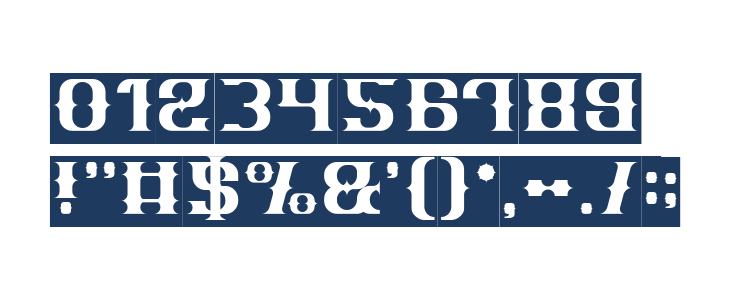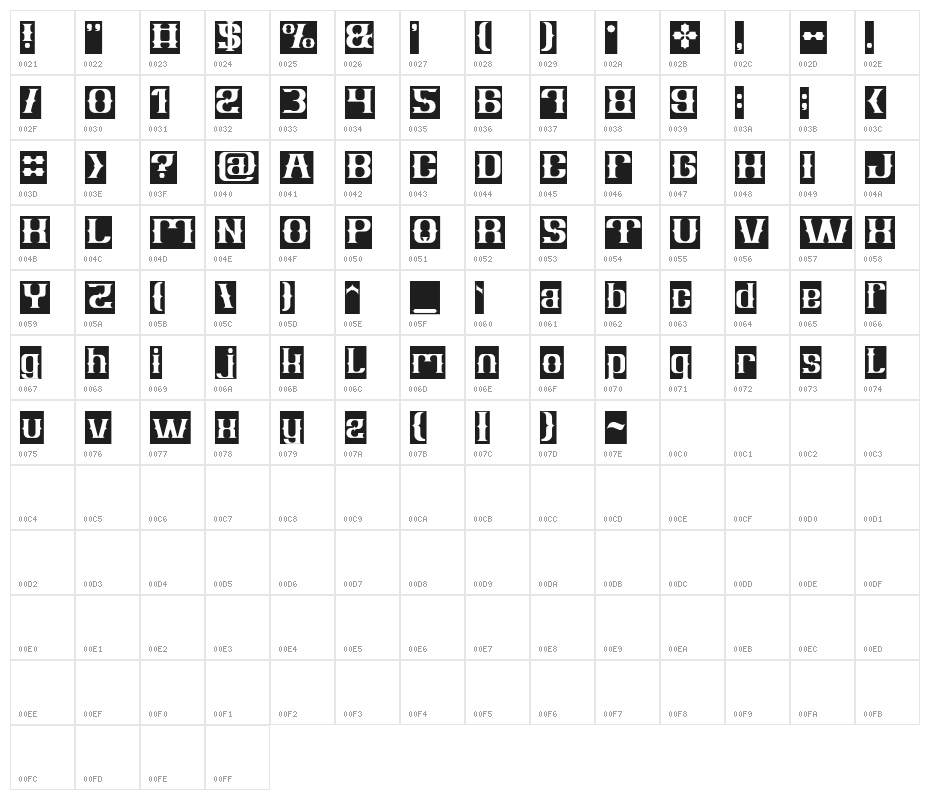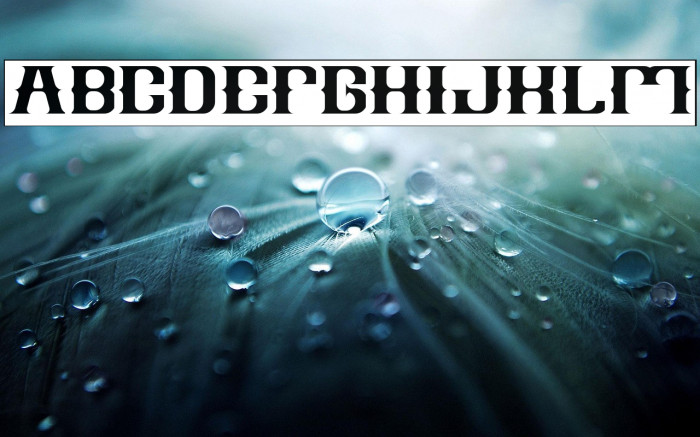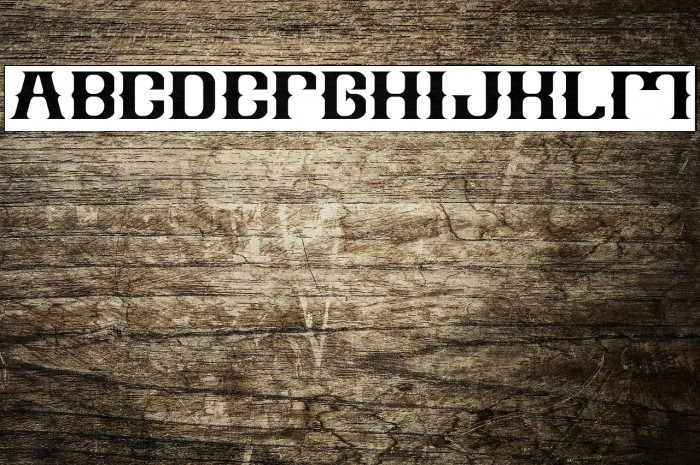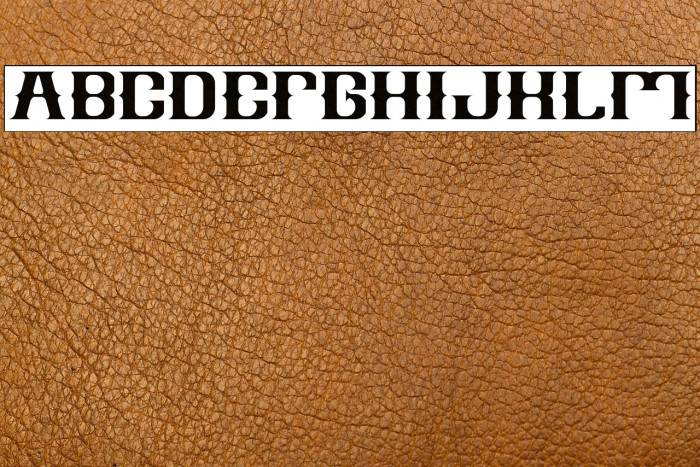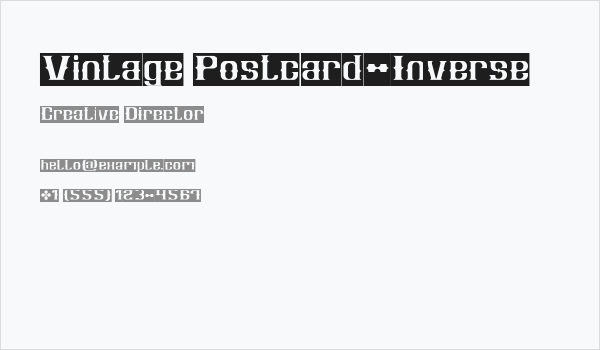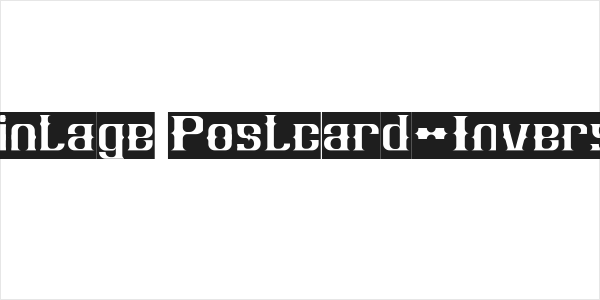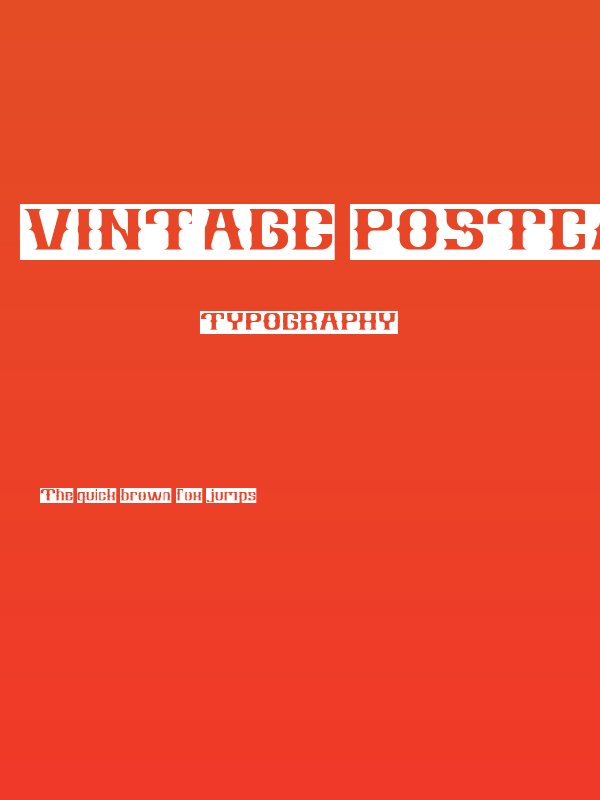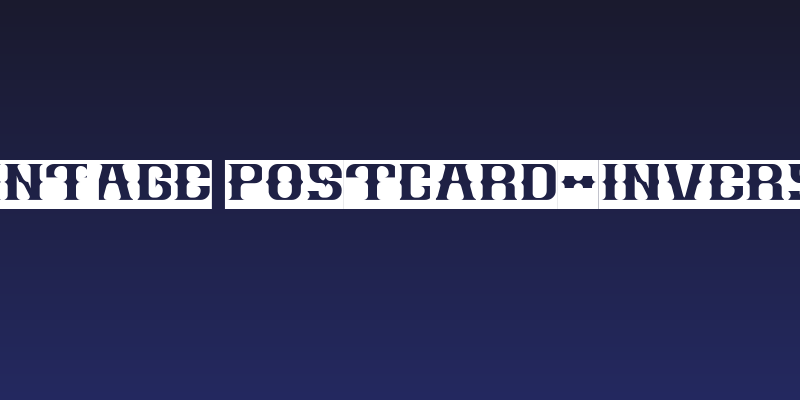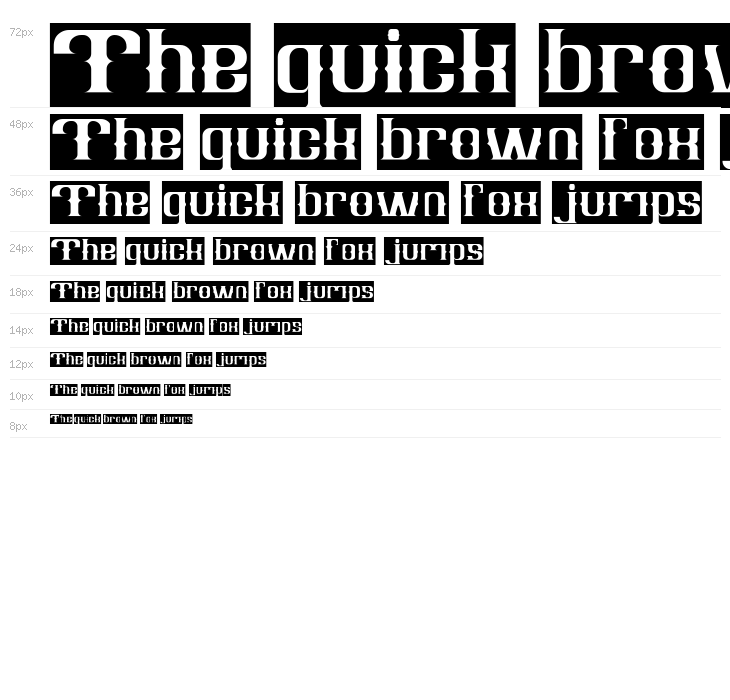
Vintage Postcard-Inverse Font
Vintage Postcard-Inverse Description
This font features a bold, decorative style with a vintage flair. The characters are designed with high contrast between thick and thin strokes, giving them a dramatic and eye-catching appearance. The uppercase and lowercase letters maintain a consistent style, with unique flourishes and serifs that add to the overall aesthetic. The numbers and special characters are equally stylized, ensuring a cohesive look across all text elements. The font's intricate design is reminiscent of old-fashioned signage or postcards, making it ideal for projects that require a touch of nostalgia.
A bold, decorative font with vintage flair and high contrast strokes from Uncategorized fonts.
- Font: Vintage Postcard-Inverse
- Proposed Projects: Ideal for vintage-themed designs, posters, signage, and branding projects that require a nostalgic touch.
- Overall Style: Vintage